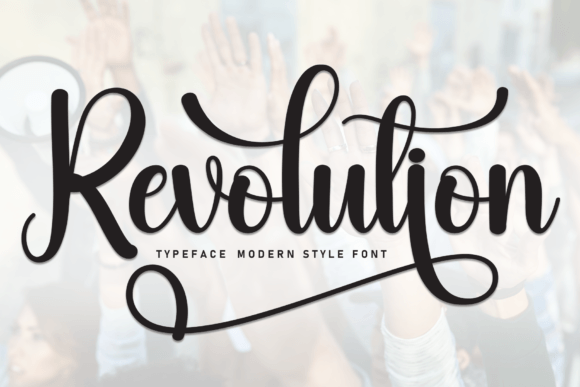
Unleash your creativity with Revolution Font, a captivating script font crafted to ignite your imagination. This exquisite handwritten font, conjured by the skilled hands of Roronoa zoro.S.P.D, harmoniously blends the charm of classic calligraphy with a refreshing modern touch. As its name suggests, Revolution Font sparks a transformation, propelling your designs to new heights of sophistication.
Step into a world of elegance and allure as you explore the curves, swashes, and flourishes of Revolution Font. Its delicate strokes evoke a sense of timeless beauty, while its contemporary spirit keeps your designs relevant and captivating. Experience the joy of creating logos, branding, wedding invitations, and product labels that radiate an air of sophistication and charm.
With Revolution Font, storytelling becomes an art form. Its graceful characters lend themselves effortlessly to beautifully crafted quotes, social media posts, and marketing materials that resonate with your audience. Its versatility extends to packaging design, where its ability to capture attention and convey a brand's unique identity makes it a standout choice.
Revolution Font is more than just a font; it's an experience. It's an invitation to elevate your designs, to make a statement, and to leave a lasting impression. Its ability to transform ordinary words into works of art will captivate your audience and leave them yearning for more. Embrace the Revolution Font and embark on a creative journey that knows no bounds.